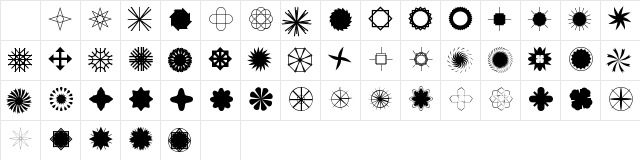
Star Time Too JL Reg1.
Design Context for Star Time Too JL Typeface
Star Time Too JL is a composed and adaptable typeface that performs quietly and consistently across a wide range of design contexts.
Pro Tip: Use Star Time Too JL in both headline and body roles to test its range before committing to a single application.